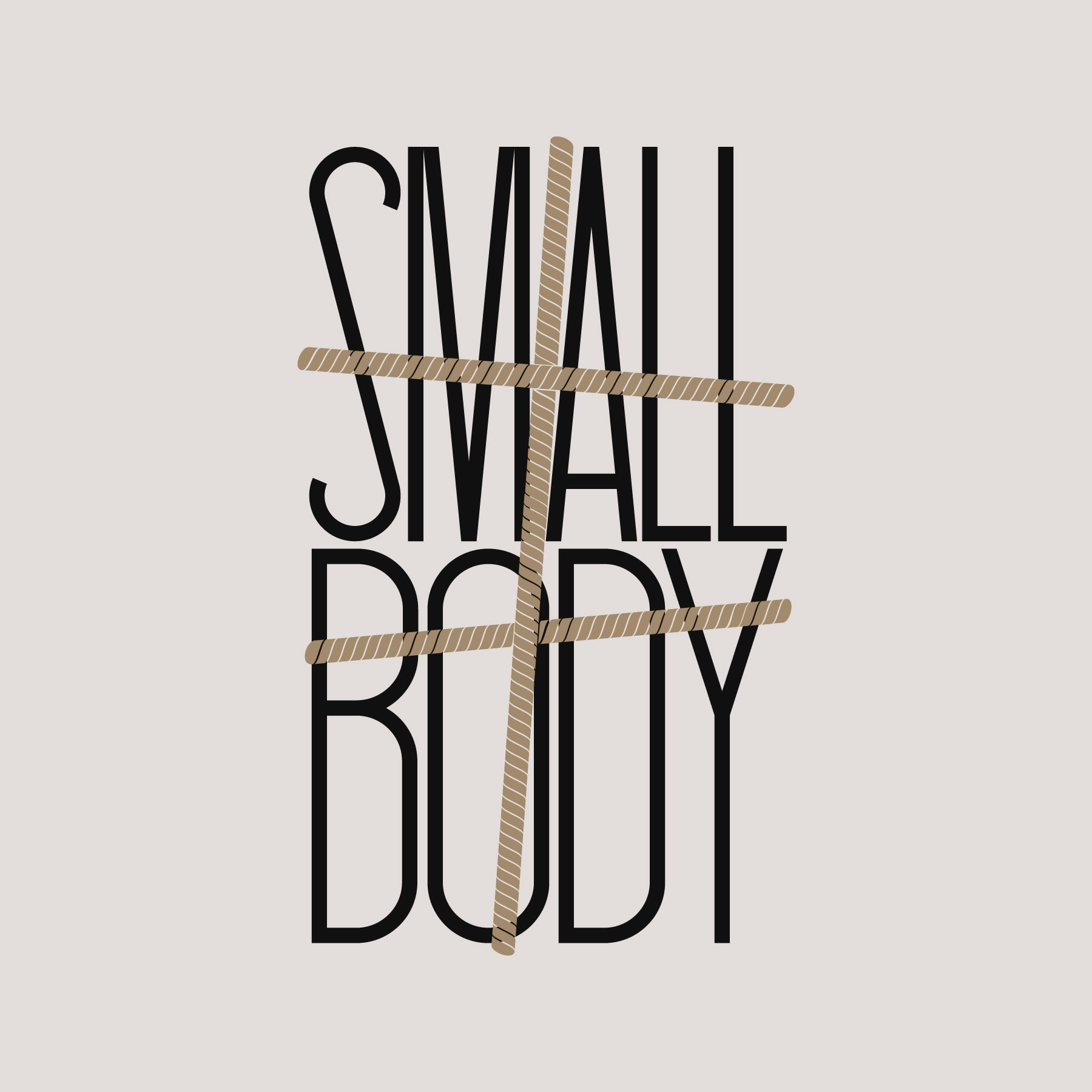
Small Body UK release
Creative for the UK theatrical release of Small Body by Laura Samani for Other Parties Film Company. The design features a bespoke letter mark bound by rope paired with beautiful stills from the film by Ulderica Da Pozzo. Social assets also use a distinctive frame around the stills in three colours.
Offical UK release quad poster creative
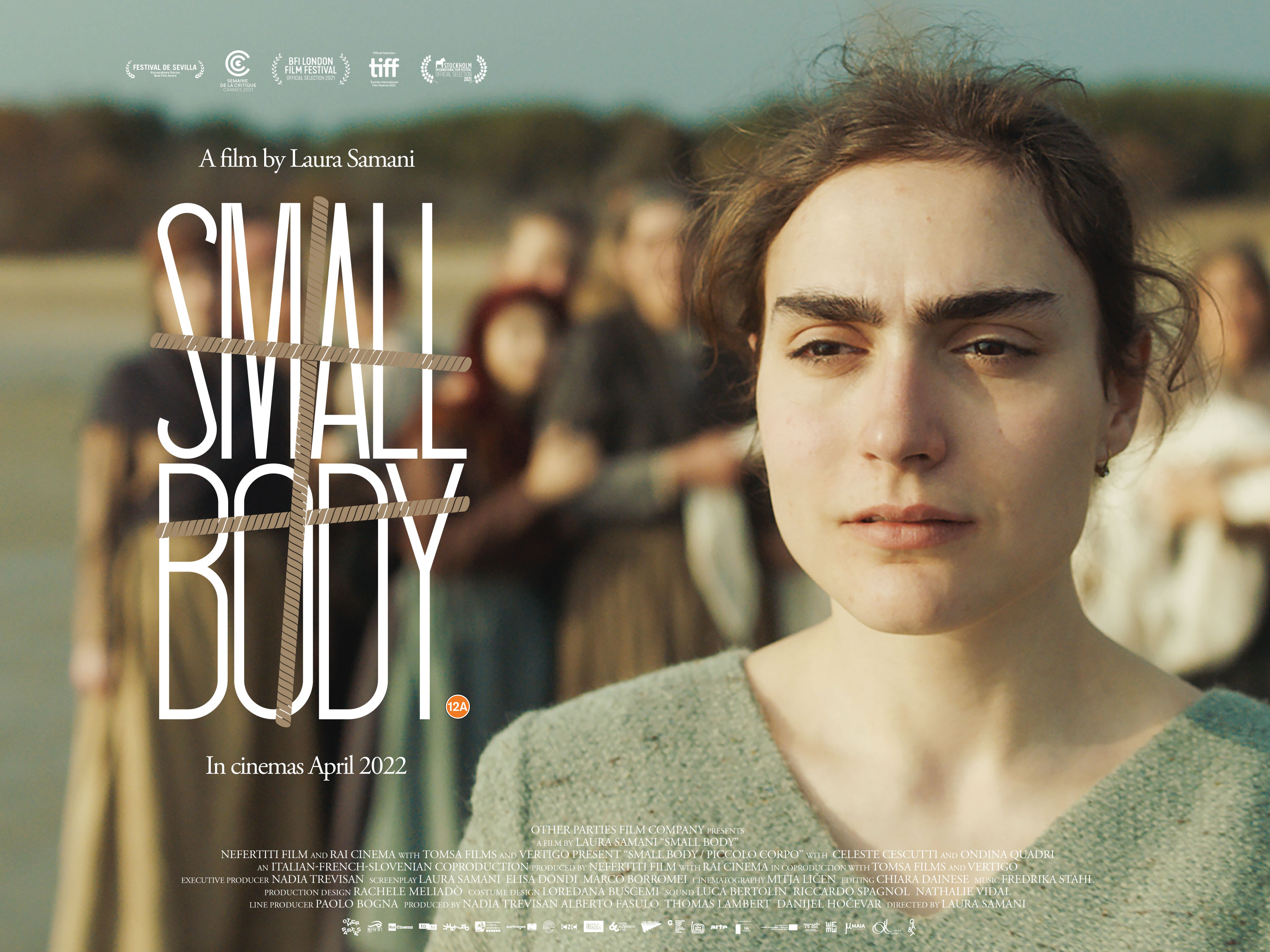
Rope bound wordmark in release colour palette
Frame device in release colour palette
Minimal black and white release creative